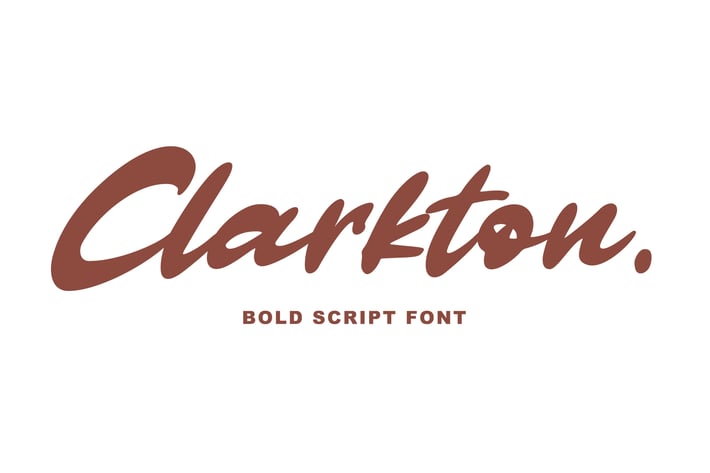
Clarkton - Bold Script Font
Introducing Clarkton - Bold Script Font, with quick dry brush strokes. You can use and enjoy Clarkton, for your projects and anything who are needing a touch of elegance and modernity for your designs.
And this font perfect for signature, handwritten quotes, wedding, product packaging, fashion, photography, merchandise, branding projects, poster, social media, book cover, greeting cards, and advertising.
All fonts containing upper & lowercase characters, numerals, alternates, swashes, punctuations and multilingual support.